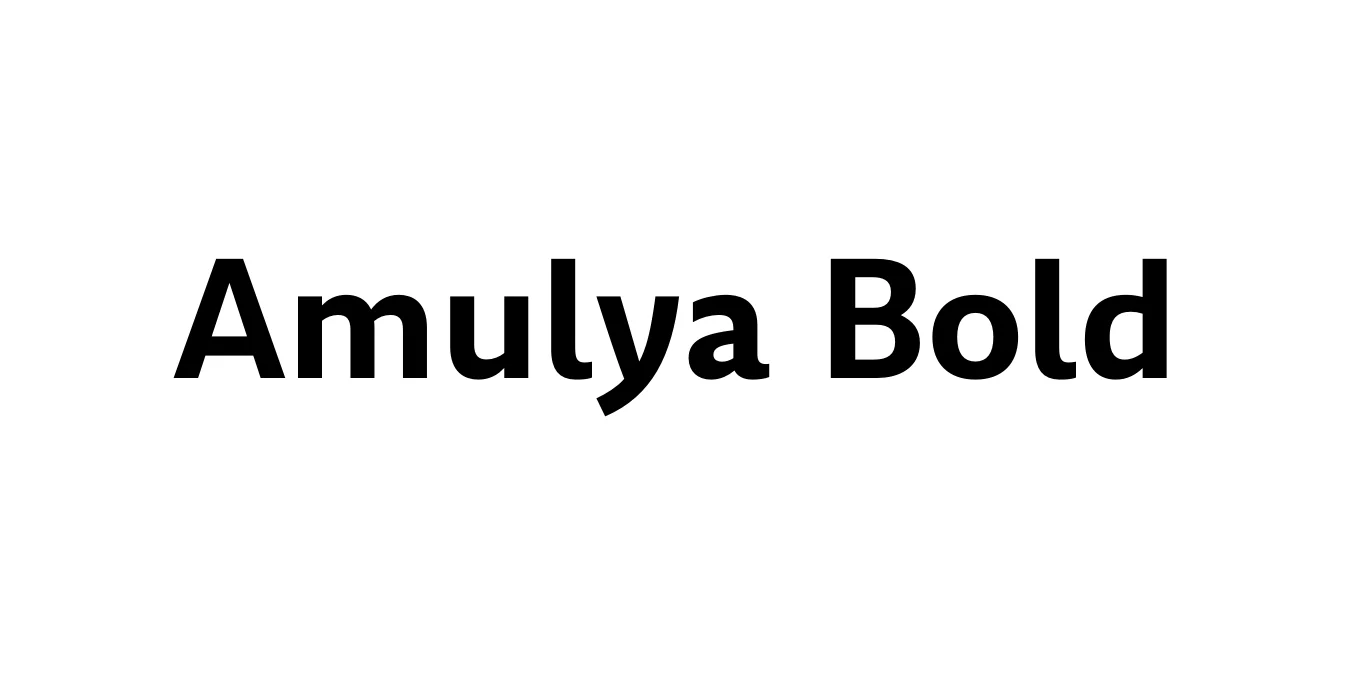
Amulya Bold
Designed by Indian Type Foundry (ITF)
| Font Name | Amulya |
| Designer | Indian Type Foundry (ITF) |
| Similar Fonts | Montserrat, Poppins, Gotham, Futura |
Amulya Bold is a sophisticated geometric sans-serif typeface developed by the Indian Type Foundry. It was crafted to bridge the gap between rigid mathematical geometry and the fluid needs of contemporary graphic design. This bold weight provides a robust presence on the page, characterized by its wide apertures, consistent stroke thickness, and impeccably balanced proportions that ensure clarity across various screen resolutions and print qualities.
The historical context of Amulya lies in the evolution of modern grotesques and geometric styles. It departs from traditional models by introducing subtle refinements in its kerning and character shapes, making it feel more humanistic than its predecessors. As a versatile tool for designers, Amulya Bold excels in environments where a sense of authority, stability, and modernism is required, serving as a cornerstone for clean, minimalist visual identities.
Amulya Bold Best Uses
Highly effective for creating impactful and trustworthy corporate logos.
Excellent for hero sections and navigation menus requiring a modern touch.
Perfect for magazine headlines and pull quotes that need to stand out.
The bold weight commands attention in large-scale advertising and prints.